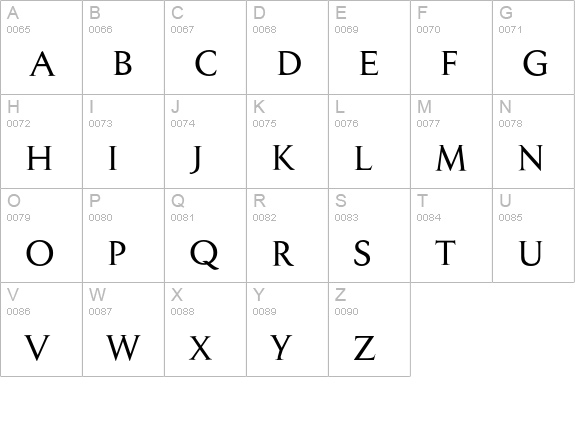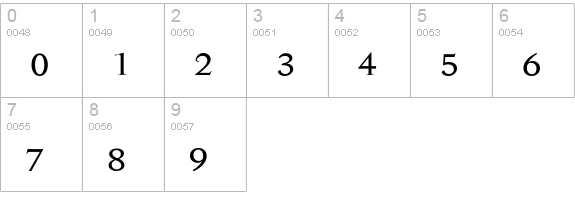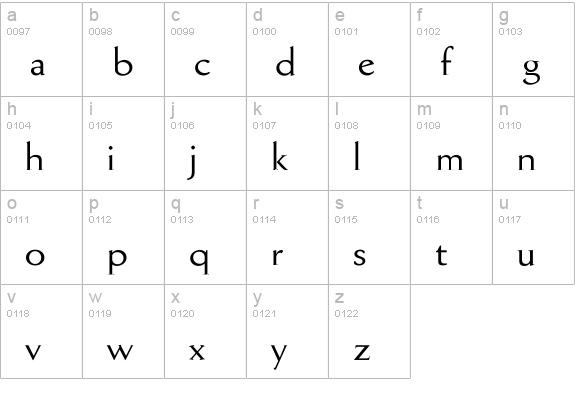
Steinbeck Reg Font Details
Steinbeck Reg font is a versatile and elegant typeface that exudes sophistication and charm. With its classic yet modern design, this font is perfect for a wide range of design projects, from branding to editorial work. Its clean lines and balanced proportions make it easy to read while still maintaining a sense of style. What's even better is that Steinbeck Reg font is available for free download at FontsMarket.com. This means you can add this beautiful font to your collection without any cost, making it a valuable resource for all your design needs. So why wait? Download Steinbeck Reg font today and elevate your projects with its timeless appeal.